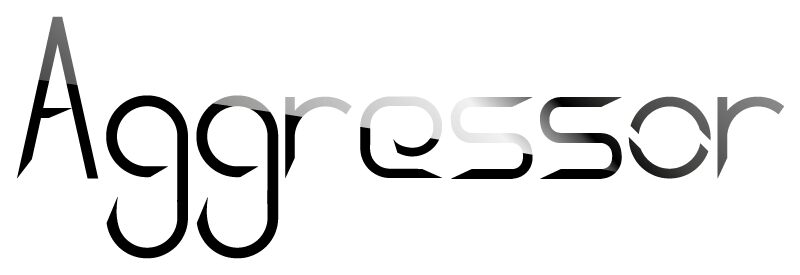
Aggressor Outline is a free retro outlined display font with a lean, sharply constructed silhouette. Its tall letters combine sweeping curves with abrupt diagonal cuts, creating a streamlined look reminiscent of futuristic 1980s graphics. Stroke widths shift dramatically across several forms.
Designers working in electronic music, arcade culture, or retro-futurist entertainment will find it suited to album artwork, game title cards, and event posters. Those applications share a taste for lettering that feels engineered, angular, and slightly unconventional.
Aggressor Outline
Nermin Kahrimanovic